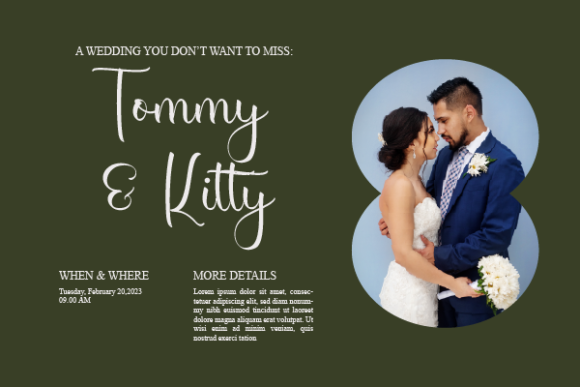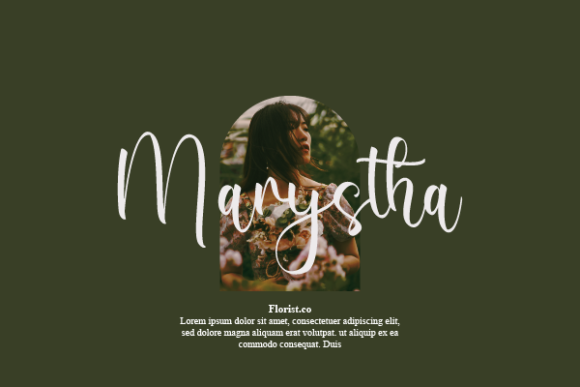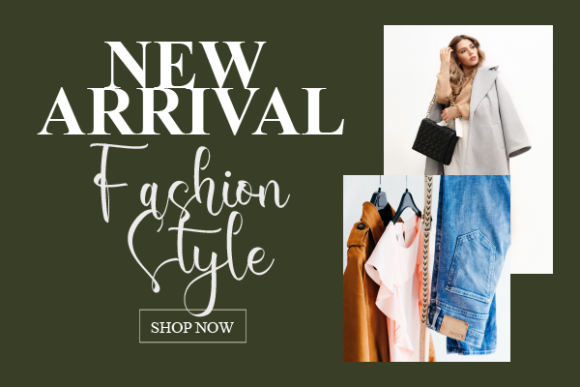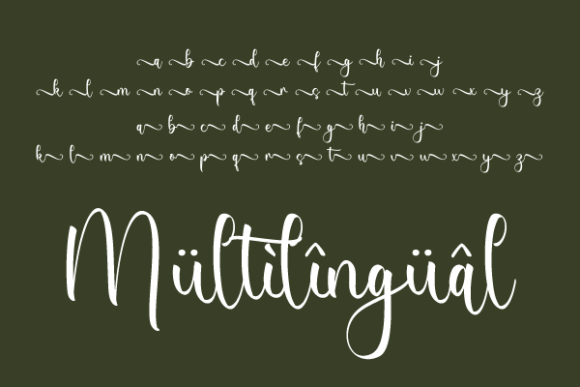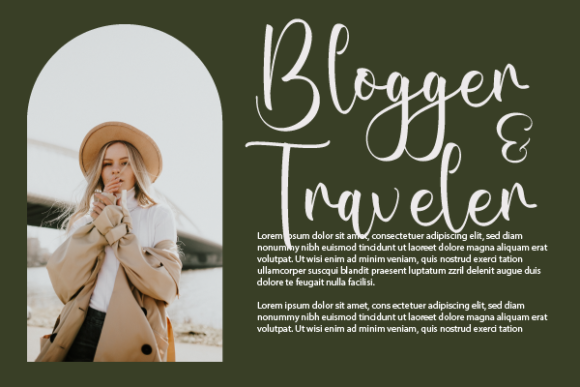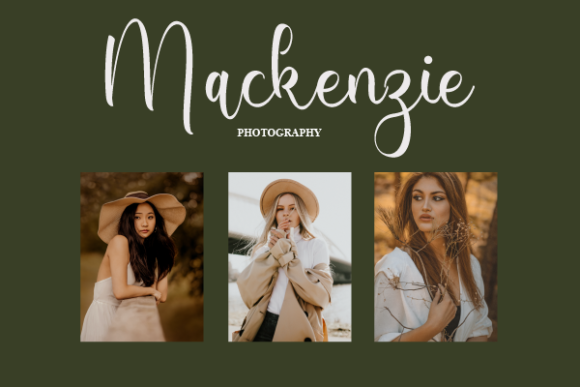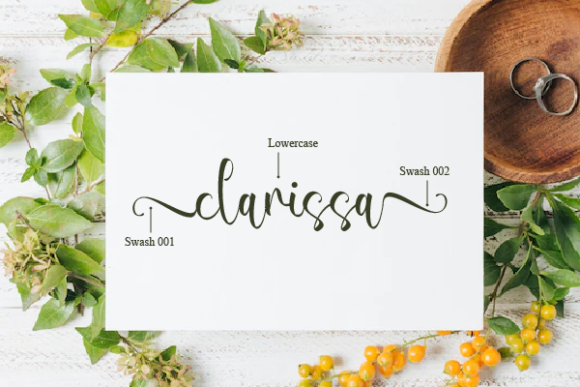
Clarissa Font
About Clarissa Font
Clarissa is a gracefully flowing handwritten font characterized by an elegant touch, making it a perfect choice for your favorite projects. Its distinct and timeless style is sure to captivate, and you’ll find it to be an excellent tool to create spectacular designs.
The flowing nature of Clarissa lends a sense of fluidity and charm to your projects, making it suitable for a variety of creative applications. Whether you’re working on invitations, branding, posters, or any other design project, Clarissa’s distinct and elegant style adds a touch of sophistication.
Fall in love with the versatility of Clarissa as it seamlessly adapts to different themes and design contexts. Its timeless appeal ensures that your creations stand the test of time, making Clarissa a reliable choice for projects where a classic and elegant aesthetic is desired.
In summary, Clarissa is more than just a font; it’s a flowing and elegant companion for your creative endeavors. Let its distinct and timeless style be the foundation for your spectacular designs, creating visuals that leave a lasting impression. Embrace the beauty of Clarissa in your projects and witness how it elevates your design aesthetic to new heights.